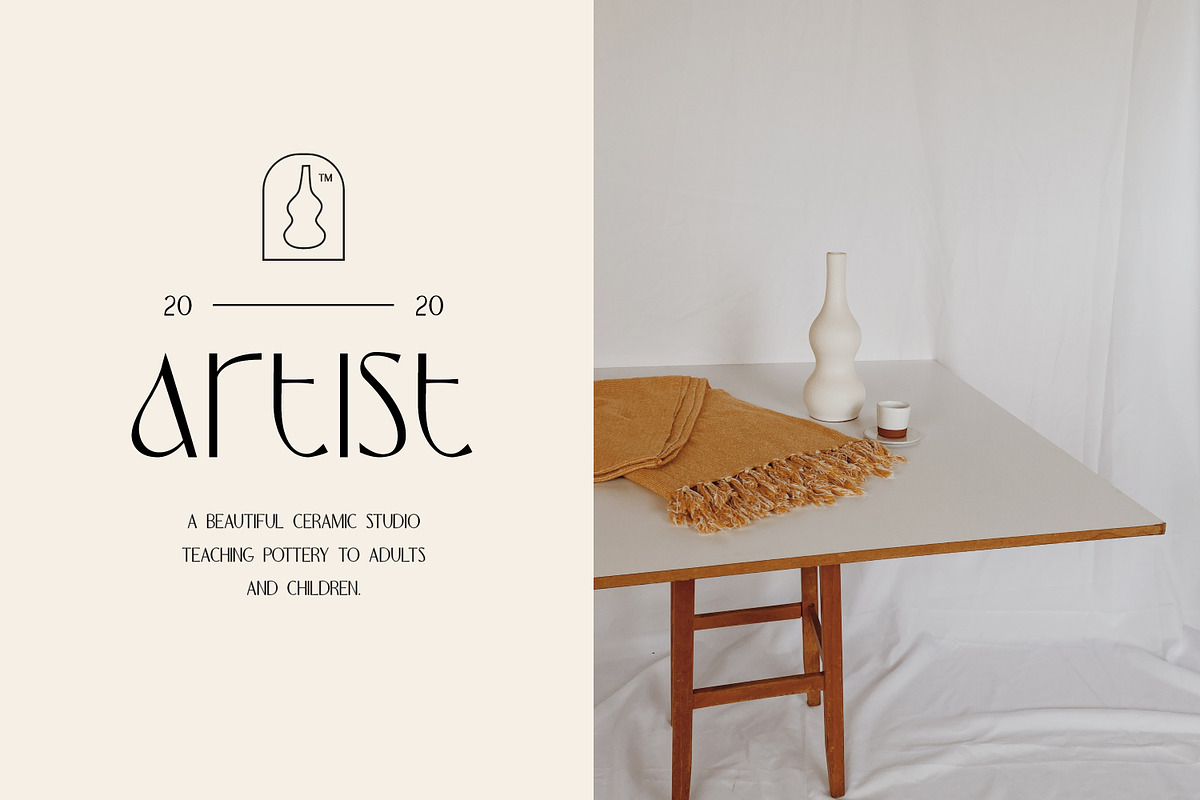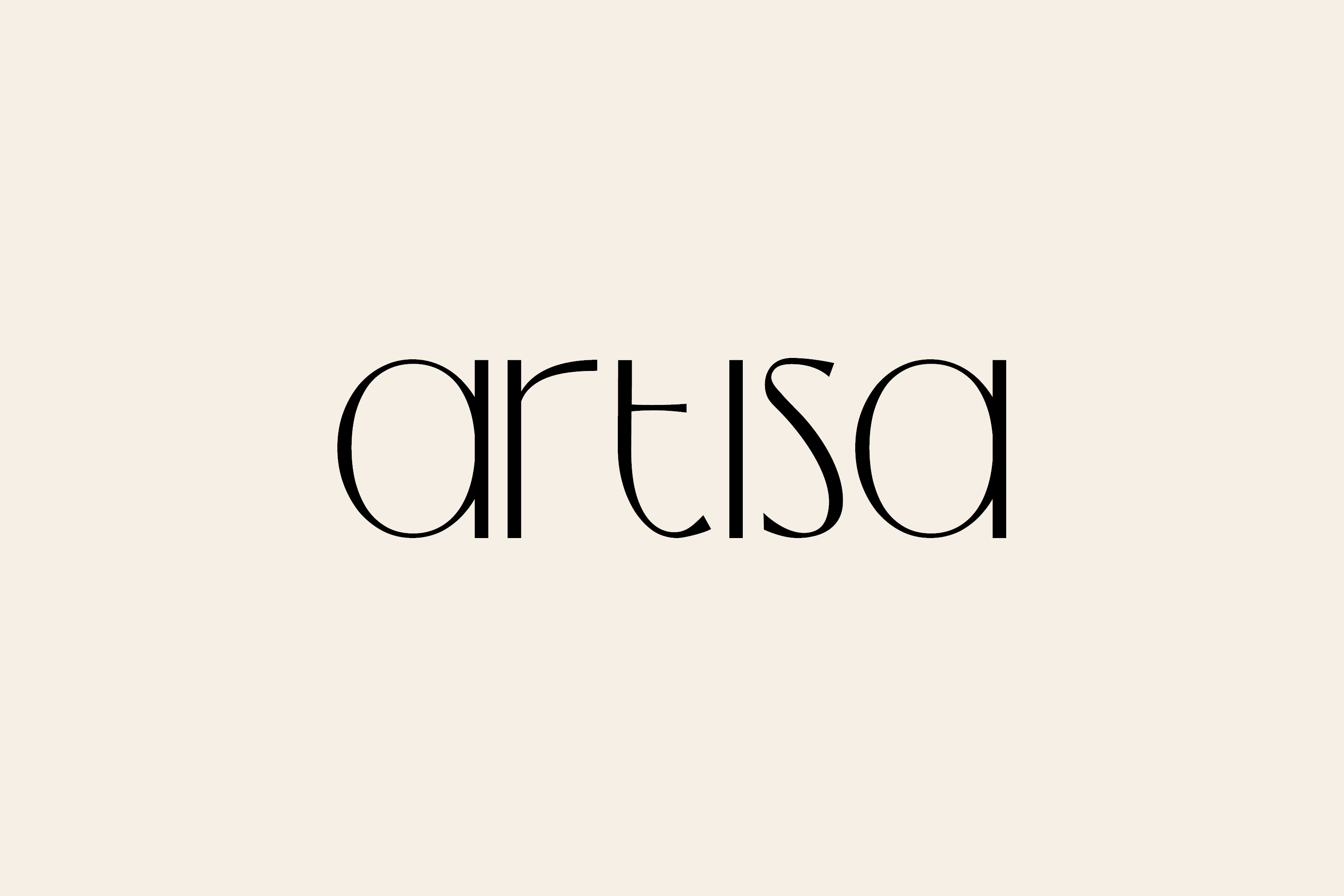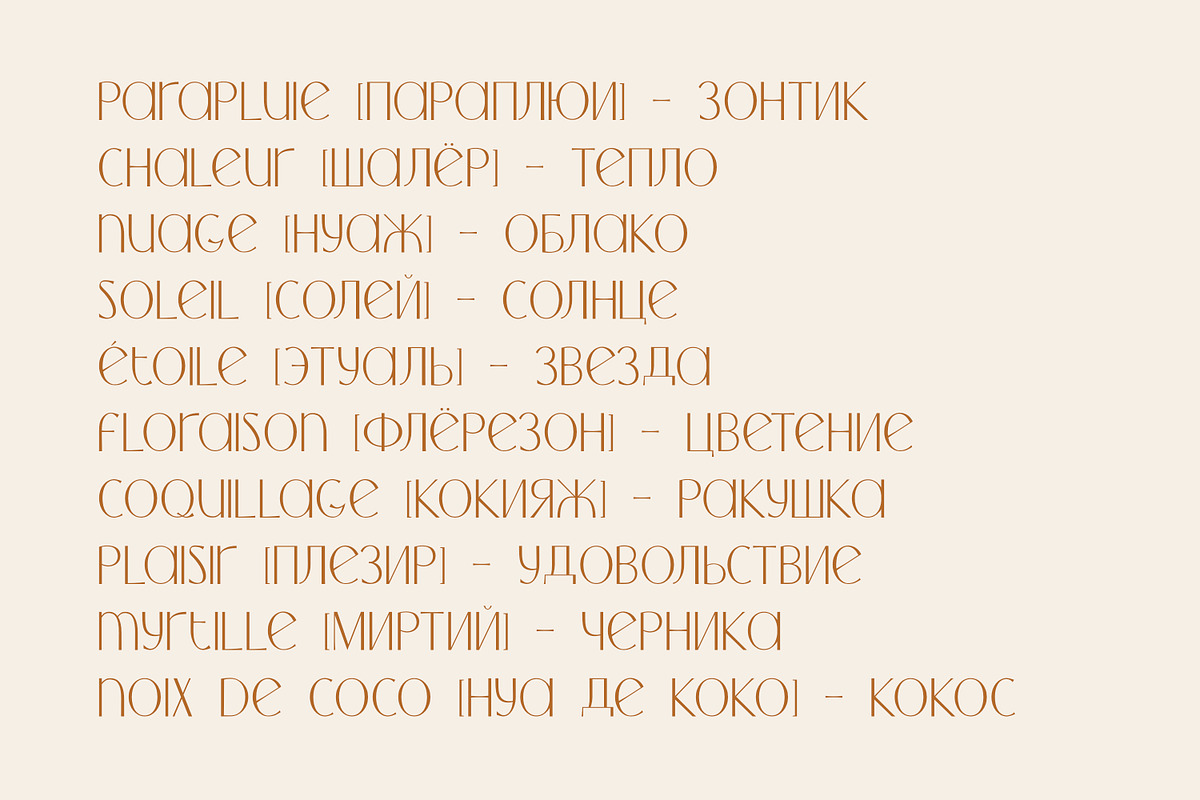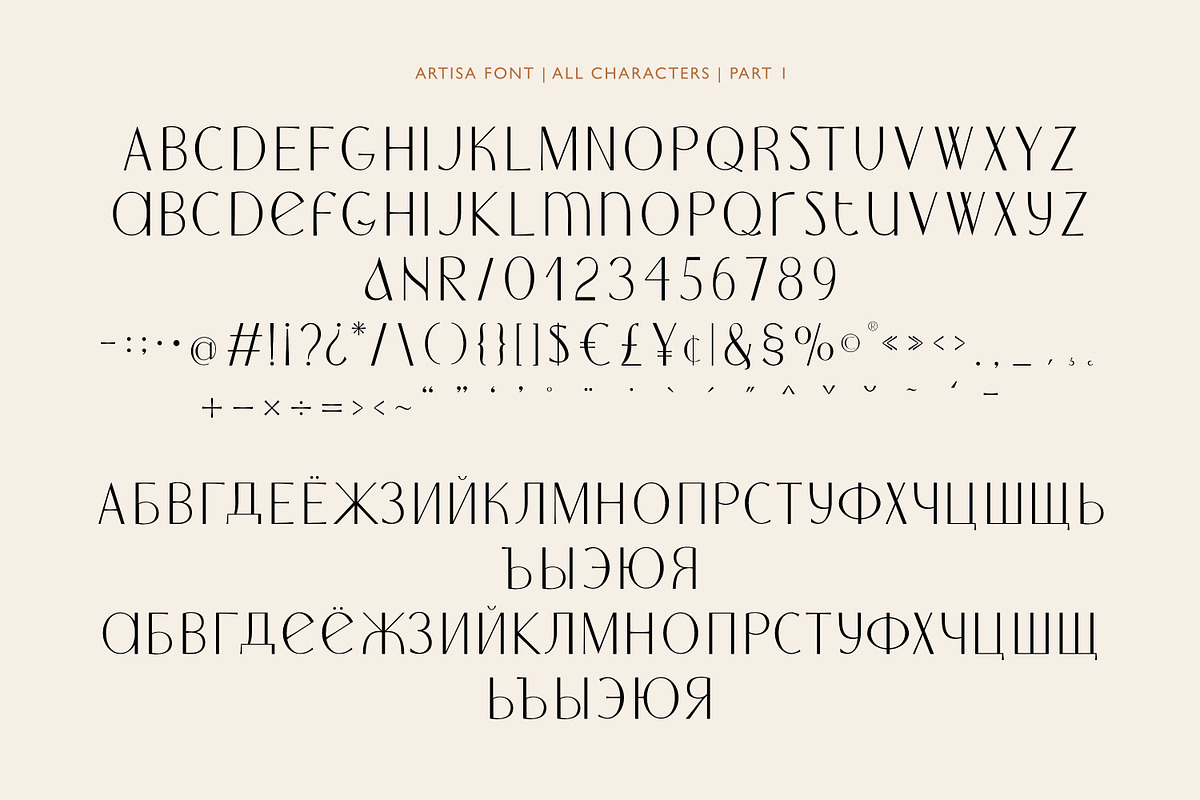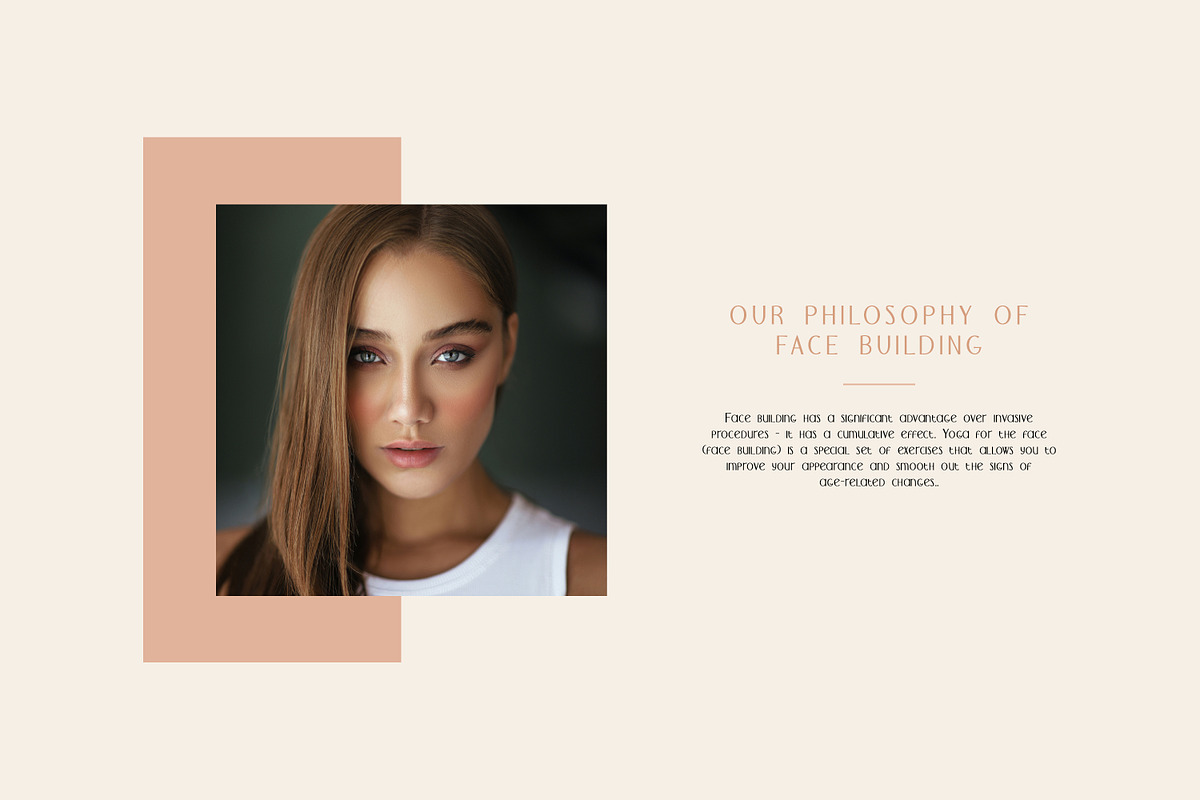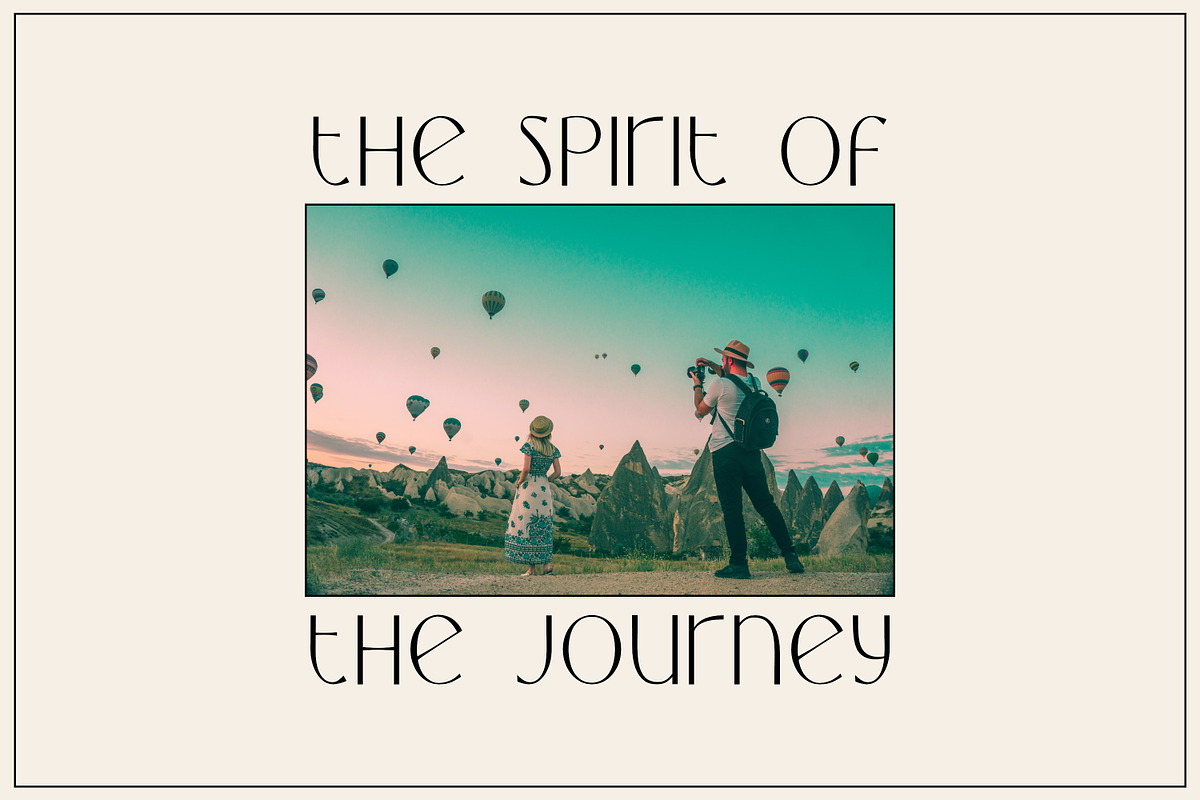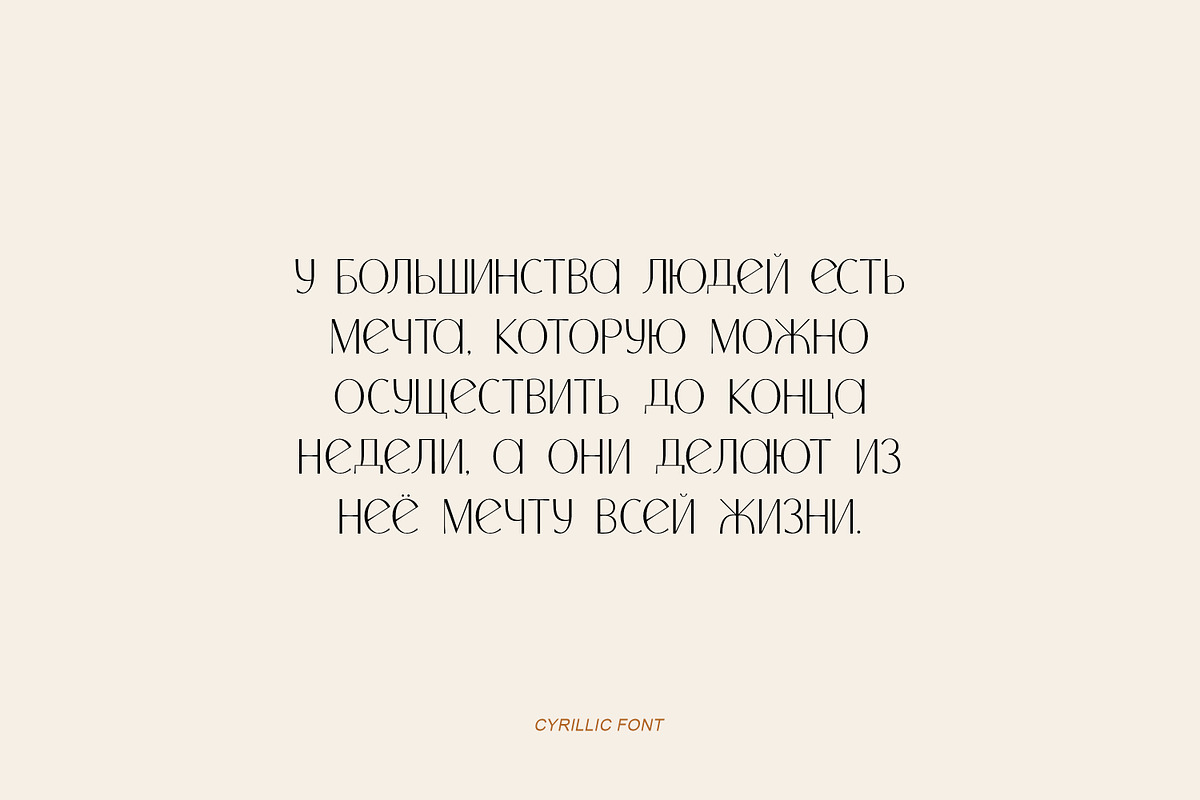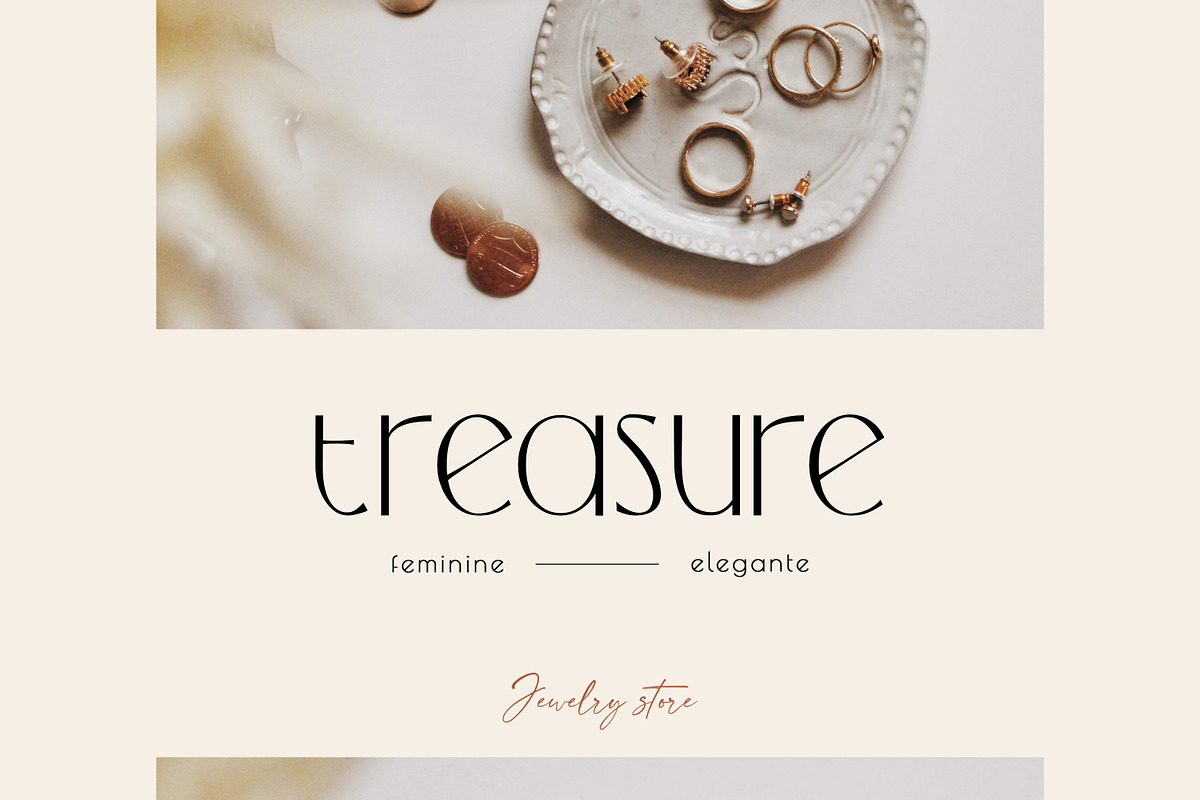
Artisa elegant font
Artisa is an elegant, minimal typeface with a luxurious vibe. This neat font can contribute to the modern and fashionable appeal of the brand. Uppercase and lowercase letters are the same height.
- Upper/lowercase, numbers, punctuations.
- Multilingual support.